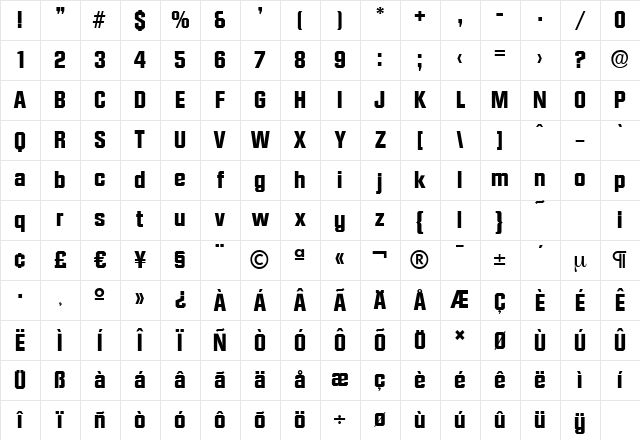
Complete DiamanteSerial-Xbold Regular glyph index. Displaying only characters natively supported by DiamanteSerial-Xbold Regular font.
Design Context for DiamanteSerial-Xbold
DiamanteSerial-Xbold is a composed and adaptable typeface that performs quietly and consistently across a wide range of design contexts. Its bold stroke weight gives it real presence on the page.